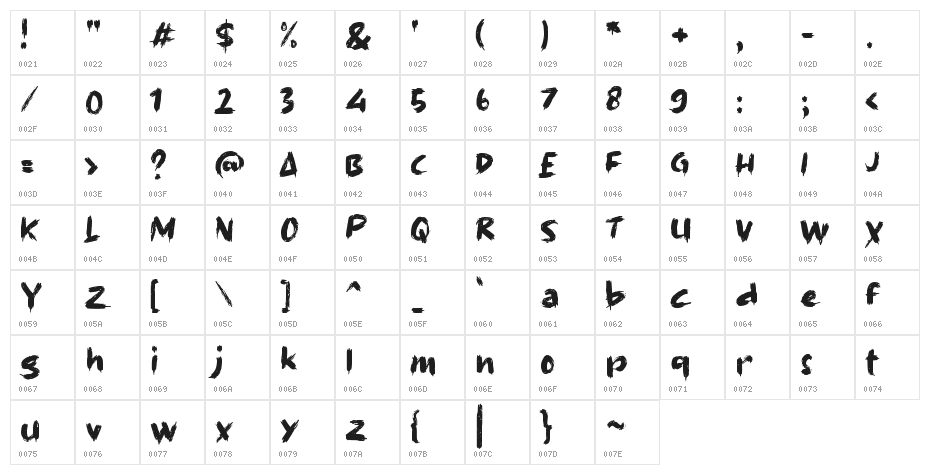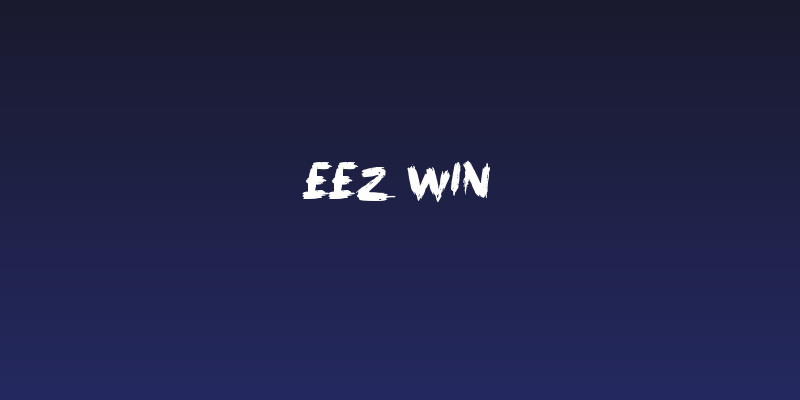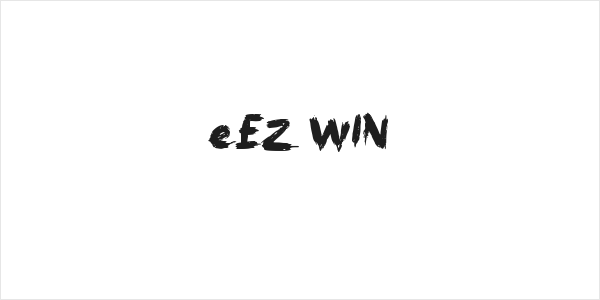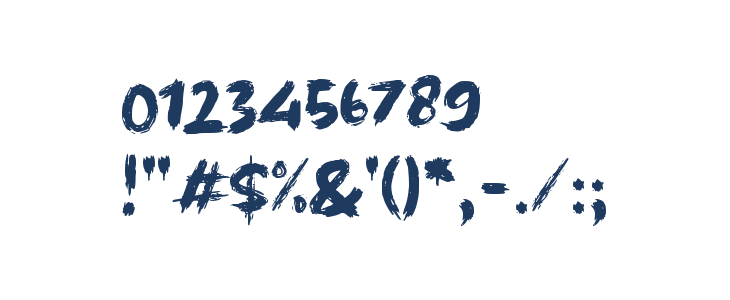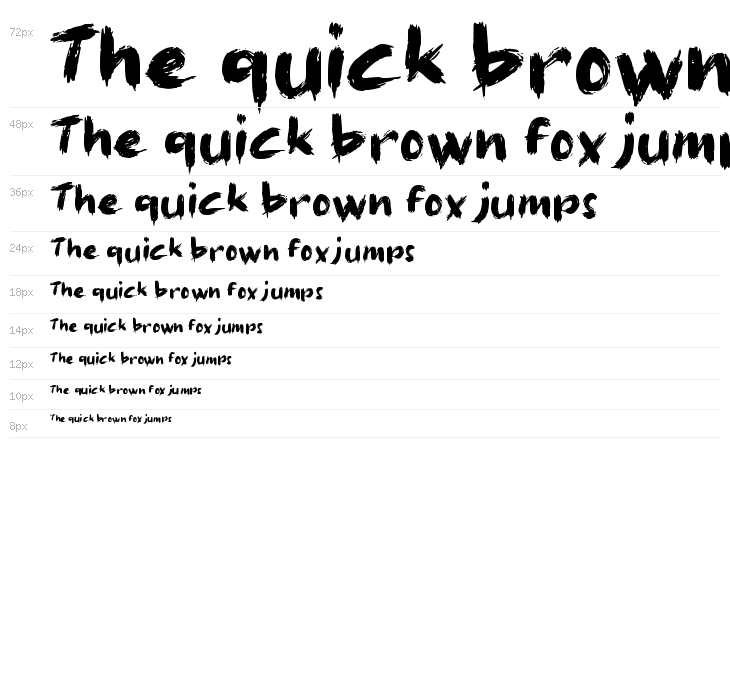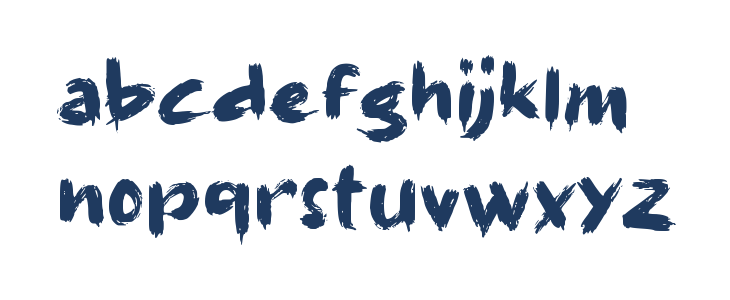
eEZ WIN Font
eEZ WIN Description
This font features a bold and dynamic brushstroke style, characterized by its rough, textured edges and energetic appearance. The letters have an irregular, hand-painted look, giving them a sense of movement and spontaneity. The uppercase and lowercase letters maintain a consistent style, with each character exhibiting unique variations that enhance the font's artistic flair. Numbers and special characters are equally expressive, making the font versatile for creative projects. Its bold presence and distinctive style make it ideal for attention-grabbing designs.
| Proposed Projects | Ideal for posters, album covers, branding, and any project requiring a bold, artistic touch. |